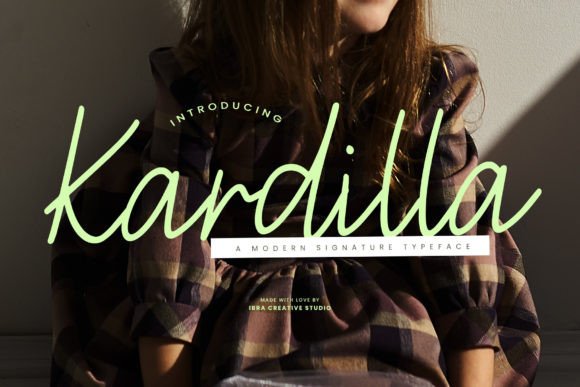
Kardilla: A Font That Breathes Elegance Into Every Craft
Real-World Examples of Kardilla in Action
- Candle Labels: Kardilla adds a touch of elegance to my candle labels, complementing the natural textures and colors of the wax.
- Birthday Invitations: For a client’s birthday party, I used Kardilla for the main text, giving the invitation a personalized and sophisticated feel.
- Wedding Welcome Boards: Kardilla worked beautifully on a welcome board, providing a clear and stylish way to greet guests.
- Printable Wall Art: I designed a series of wall art prints using Kardilla as the primary text, creating a modern yet artistic look.
- Boutique Packaging: Kardilla helped create a cohesive brand look for a boutique’s packaging, ensuring that every detail aligned with their aesthetic.